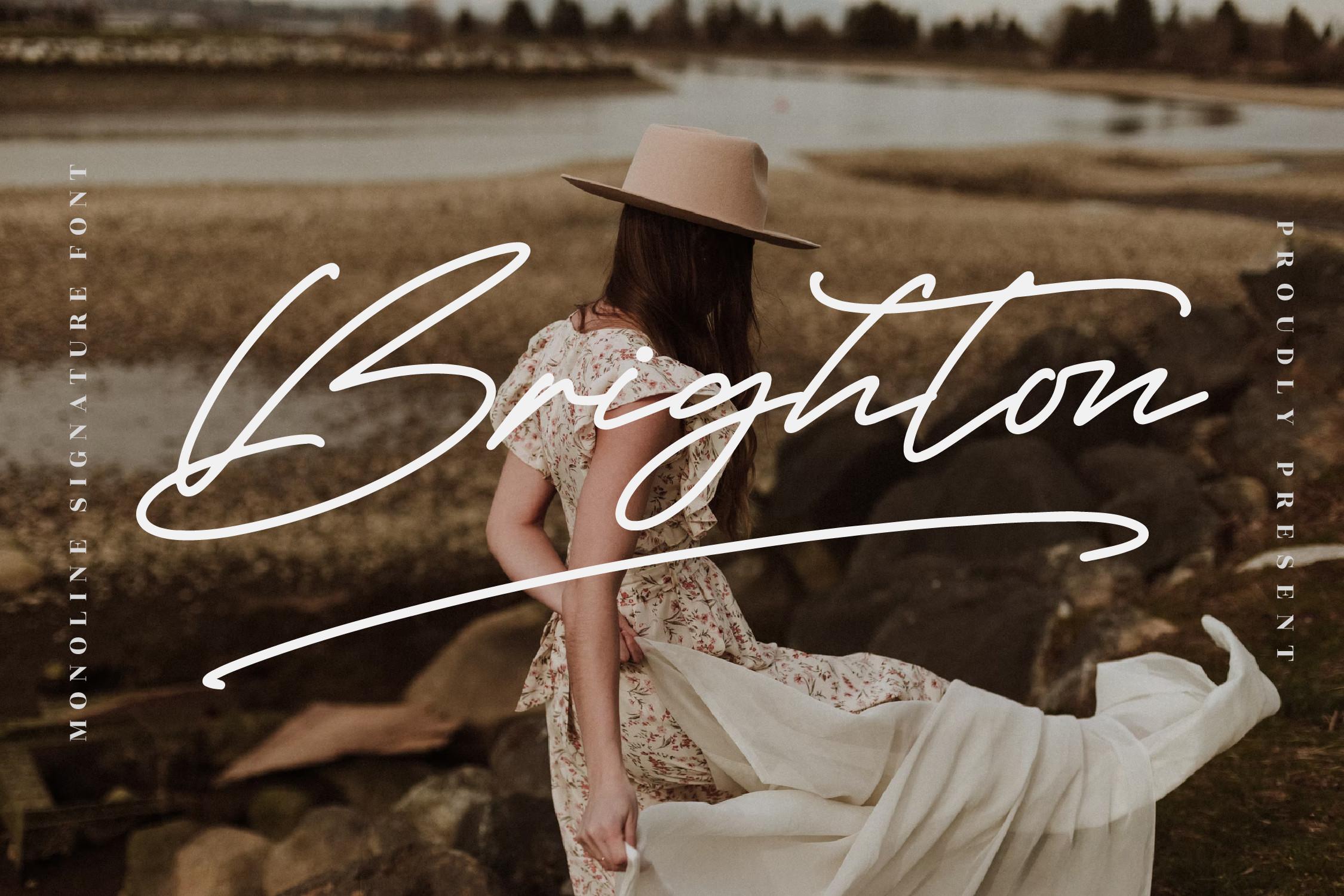
Brighton Font Description
Brighton is a stylish and uniquely designed handwritten font. It looks stunning on wedding invitations, thank you cards, quotes, greeting cards, logos, business cards and more. This font is PUA encoded which means you can access all of the glyphs and swashes with ease!